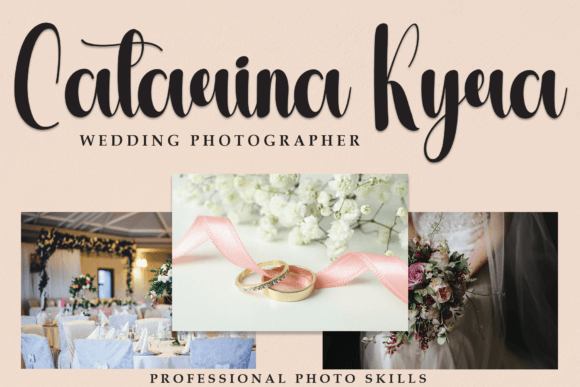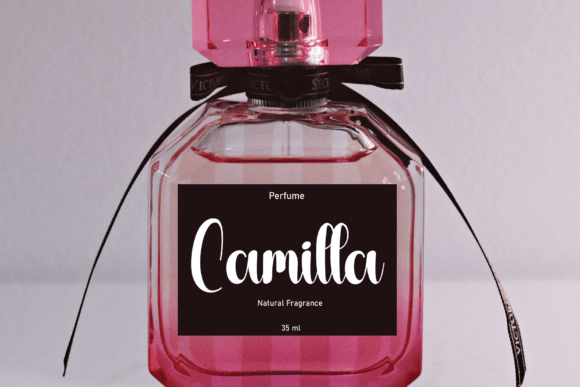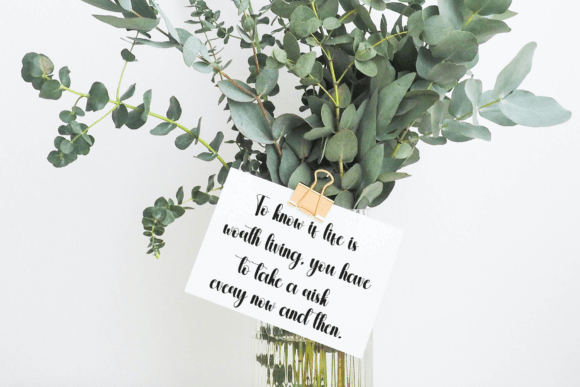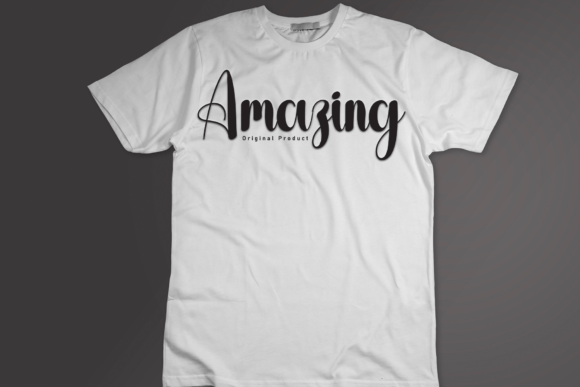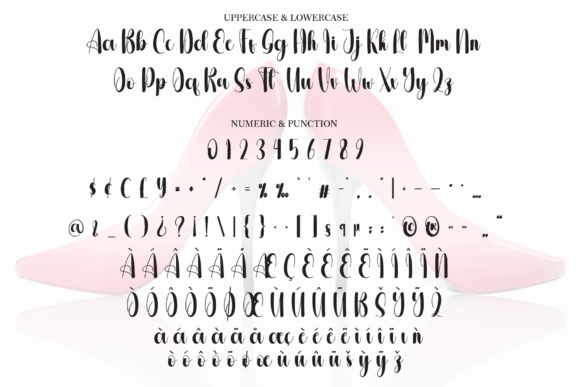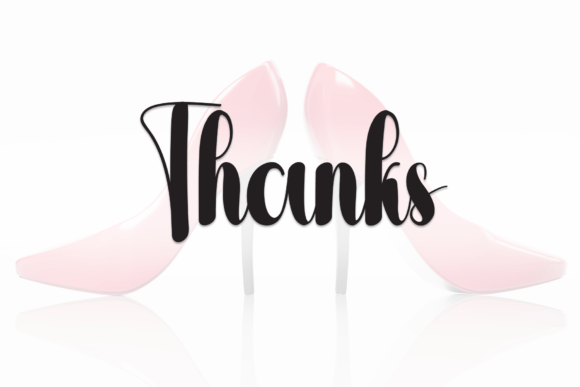
Introduction to Highheels Font
Highheels is a sweet and friendly handwritten font.
Fresh and casual, this font is ideal for writing wedding invitations, cards, or any other design that might need a lovely touch .